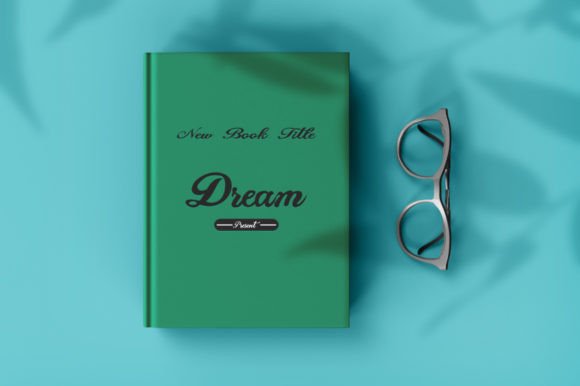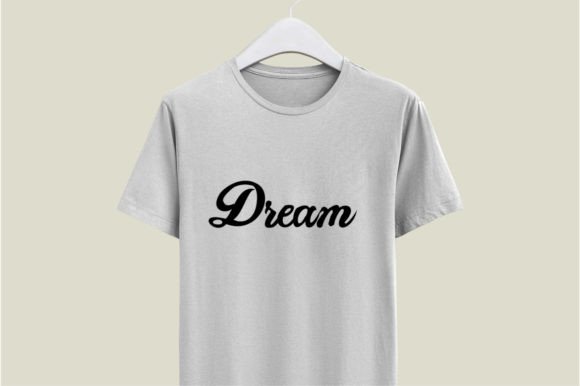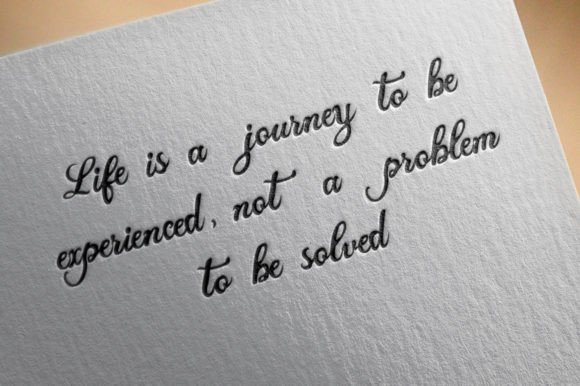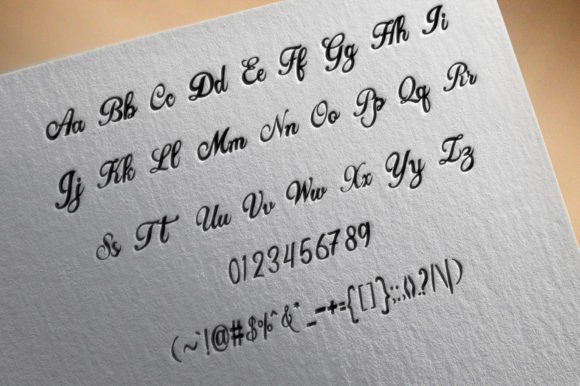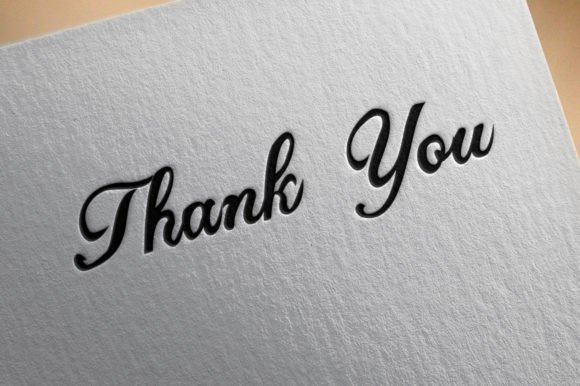
The Perfect Font for Your Creative Dreams
Have you ever been working on a project, pouring your heart and soul into every detail, and then suddenly, the perfect font pops into your mind? It’s that magical moment when everything comes together, and you know you’ve found the missing piece to your design puzzle. For many designers, that moment is what makes all the hard work worth it.
For those who’ve been searching for that elusive perfect font, we’ve got some exciting news. Say hello to Dream Font, a stunning modern script that’s about to become your new go-to choice. With its elegant touches and flowing lines, Dream Font is perfect for weddings, logos, photography, and anything else that requires a touch of sophistication.
As a designer, you know how valuable the right font can be. It’s not just about aesthetics; it’s about conveying emotion and creating a lasting impression. Dream Font is that game-changing font that will elevate your designs to the next level, making it a must-have in your design arsenal.
Dream Font Key Features
- Unique Character Set: Dream Font features a unique set of characters, including swashes, ligatures, and ornaments, making it ideal for creative and design-oriented applications.
Dream Font Review
As a designer, I’ve had the chance to work with “Dream Font” and I must say it’s an interesting experience. Here’s my honest review.
- The font’s unique blend of modern and elegant elements is quite striking. It adds a touch of sophistication to any design.
- The font’s high legibility makes it suitable for a wide range of applications, from body text to headings.
- The font family includes a good number of weights and styles, which makes it easy to create visually appealing typographic hierarchies.
- The font may be a bit too ornate for some designs, which can make it look cluttered or overwhelming.
- The font’s high contrast between thick and thin strokes can make it difficult to read at small sizes.
- The font family could benefit from more comprehensive language support, especially for non-Latin scripts.
Dream Font is a solid choice for designers who want to add a touch of luxury to their projects. However, it may not be the best fit for every design. With some careful selection and consideration, Dream Font can be a great addition to your design toolkit.
Tips for Getting the Most Out of Dream Font
Here are some tips for getting the most out of Dream Font:
- Combine Dream Font with other fonts for a layered, textured look.
- Use Dream Font for headings and titles to create a visually appealing design.
Common Use Cases for Dream Font
Dream Font is perfect for:
- Designing dreamy, ethereal graphics and illustrations.
- Creating titles and headings for blog posts, articles, and social media.
- Adding a